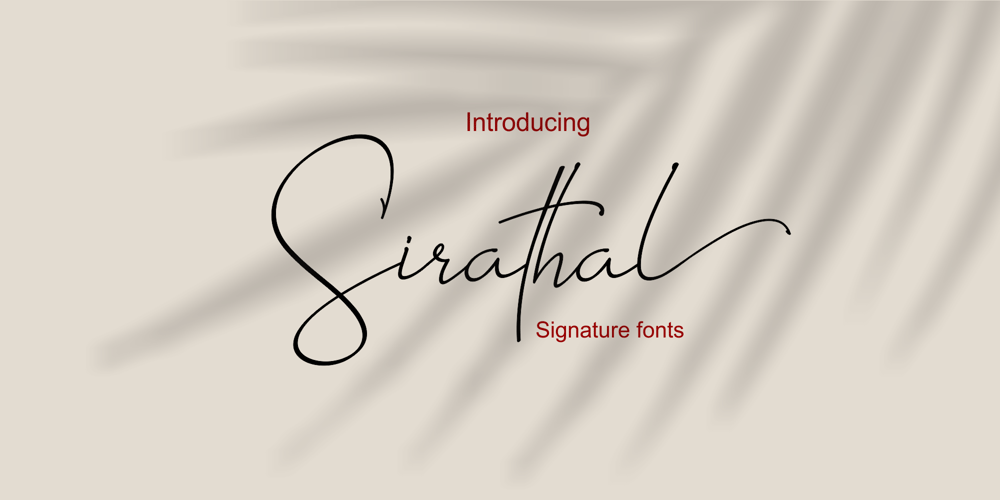
Sirathal Font Family was designed by Murtadha bin Sulaiman and published by Malindo Creative. Sirathal contains 1 styles and family package options. Introducing, Sirathal is a Signature types,with a Sirathal, making your design look very beautiful,it is suitable for all types of printing, clothing, invitations, mugs, books, business cards,etc.The Features includes:Alternates, Swashes, Ligatures, Stylistic Set.Linguage Support: €Š‹ŚŤŽŹ‘’“”™š›śťžźˇ˘¦§¨©Ş«®Ż±˛ąş»Ľ˝ľżŔÁÂĂÄĹĆÇČÉĘËĚ ÍÎĎĐŃŇÓÔŐÖŘŮÚŰÜÝŕáâăäĺćçčéęëěíîďđńňóôőö÷řůúűüý˙Ā¢àèêùˆ˚This font is PUA encoded which means you can access all of the glyphs and swashes with ease!To enable the OpenType Stylistic alternates, you need a program that supports OpenType features such as,Adobe Indesign,Adobe Illustrator CS & CorelDraw X6-X7, Microsoft Word 2010 or later versions.If There Any questions, Please Let Me Know,Contact me,at malindocreative@gmail.com,Your support and suggestion is needed, And I am Happy To Help You.Thanks For Looking And support,Hopefully Useful,And Good Luck For You,Love you all.